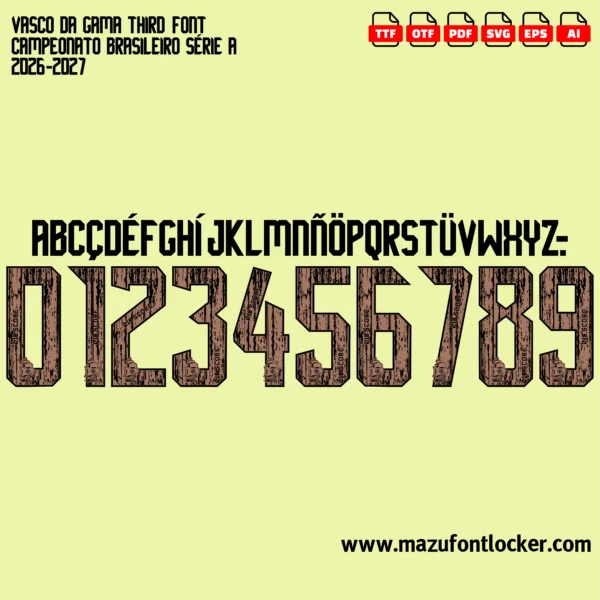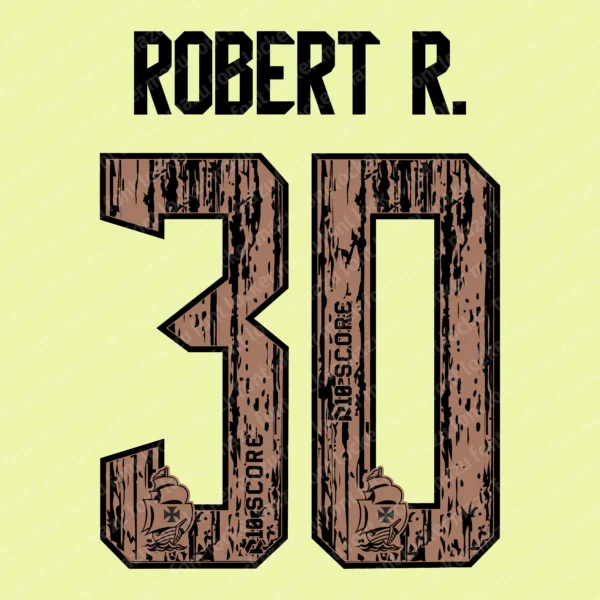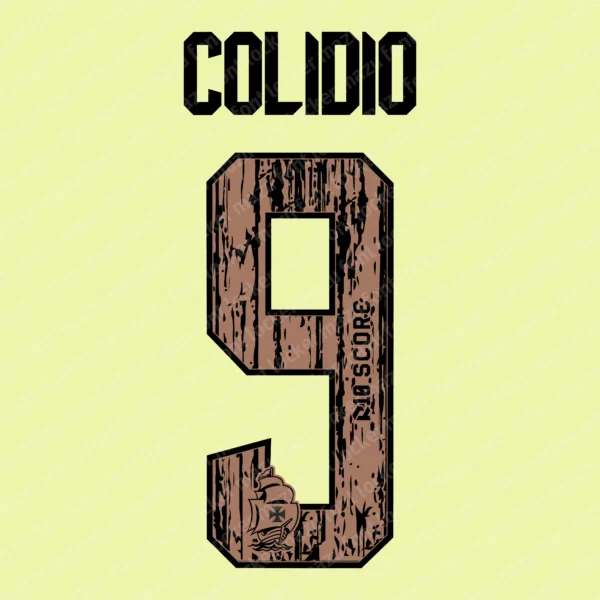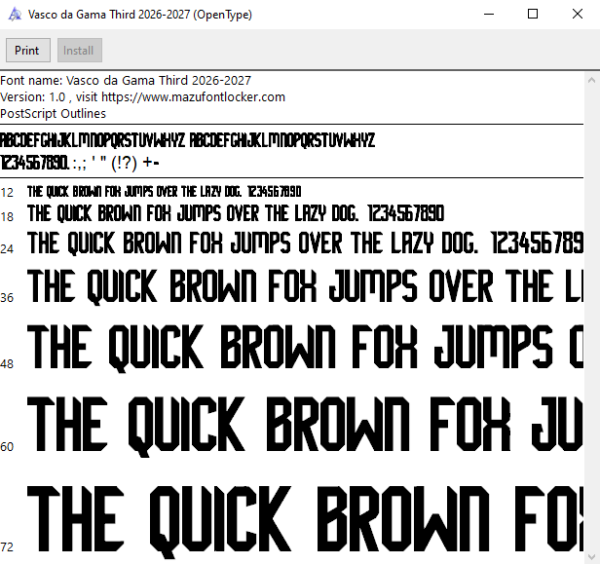
Vasco da Gama Third 2026-2027 Font Vector – Stunning Cruzmaltino Masterpiece
This font captures the razor-sharp, thunderous lettering that embodies Vasco da Gama’s proud club identity, rich Brazilian football heritage, iconic black-and-white tradition, and relentless winning mentality — delivering premium quality and explosive energy for jersey mockups, football graphics, sports branding, and fan creations.
Vasco da Gama Third 2026-2027 Font Vector – Iconic Cruz de Malta Heritage Typeface
The Vasco da Gama Third 2026-2027 Font Vector is a premium typeface that accurately recreates the official match lettering worn by Vasco da Gama on their third kit during the 2026-2027 season. This high-quality vector font kit captures the bold, clean, and instantly recognizable typography that perfectly complements the club’s iconic black and white identity.
Designed for professional designers, football enthusiasts, and passionate Vasco supporters, the Vasco da Gama Third 2026-2027 Font Vector delivers exceptional authenticity for creating realistic jersey mockups, football merchandise, social media graphics, match posters, and custom fan artwork. Every character has been carefully recreated to match the powerful and precise visual style of one of Brazil’s most historic and beloved football clubs.
This font stands out thanks to its precise vector construction and authentic club-inspired styling. Every letter and numeral has been meticulously recreated to match the official shirt lettering used on the third kit throughout the 2026-2027 Brasileirão and continental campaigns. Whether you’re producing professional kit templates or creating eye-catching football content, the Vasco da Gama Third 2026-2027 Font Vector delivers a genuine match-ready appearance inspired by the proud identity of the Gigante da Colina.
The lettering featured in the Vasco da Gama Third 2026-2027 Font Vector combines clean geometric lines with powerful modern proportions. The result is a premium and highly readable typeface that reflects Vasco’s fighting spirit, attacking football, precision, and proud Cruz de Malta heritage.
- Complete uppercase A–Z alphabet and numbers 0–9 in authentic Vasco da Gama Third 2026-2027 style
- Recreate the distinctive look of Vasco player names and squad numbers for creative projects